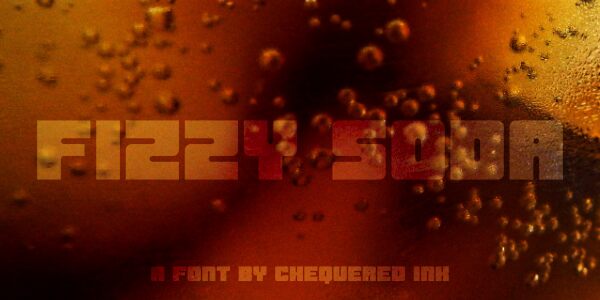
Fizzy Soda Regular
Dive into the playful effervescence of Fizzy Soda, a typographic delight crafted by Chequered Ink. With its sans serif style, this extra-bold and expanded font bubbles with creative potential.
Its wide stance and confident weight make it a standout choice for impactful headlines, dynamic logos, and spirited advertising campaigns. Embrace the versatility of Fizzy Soda and let your designs pop with a fresh burst of contemporary energy!